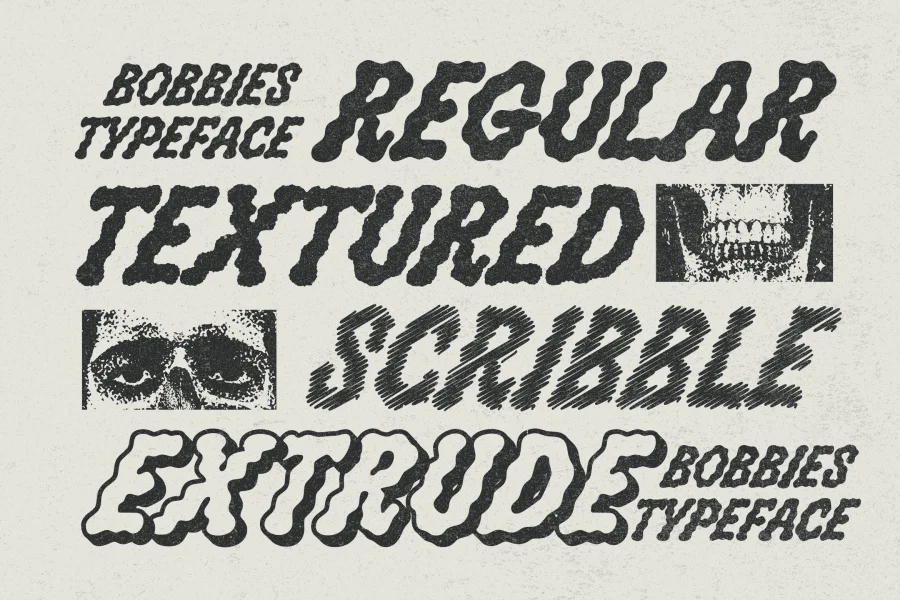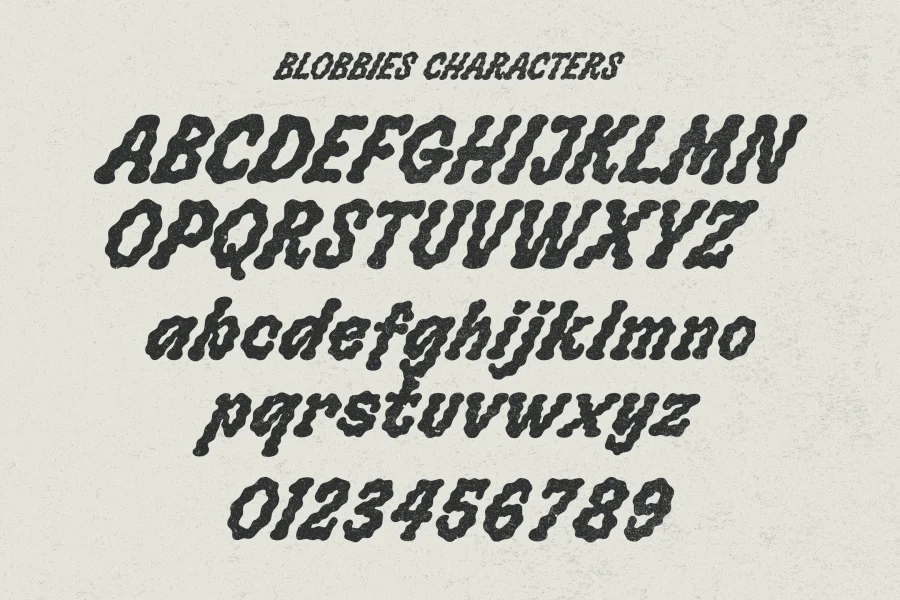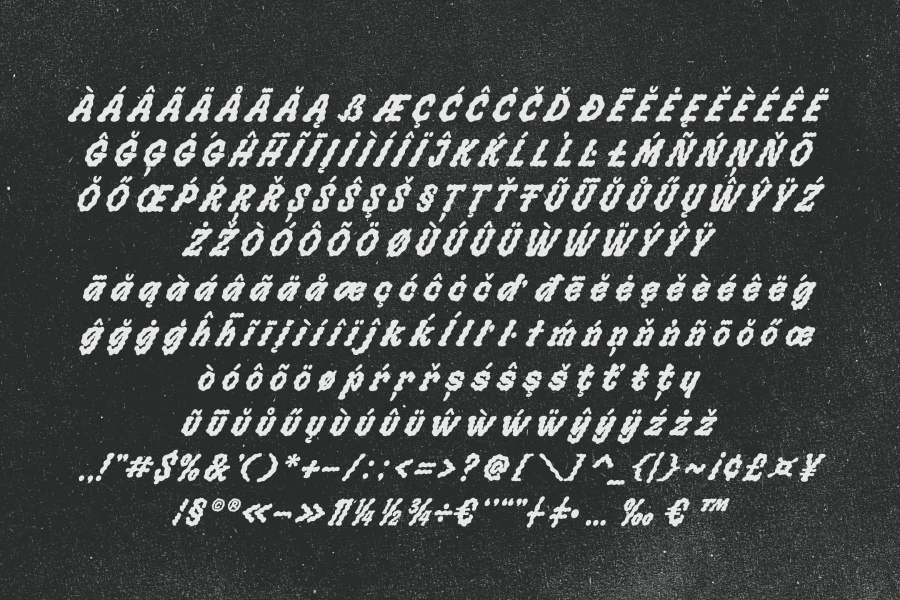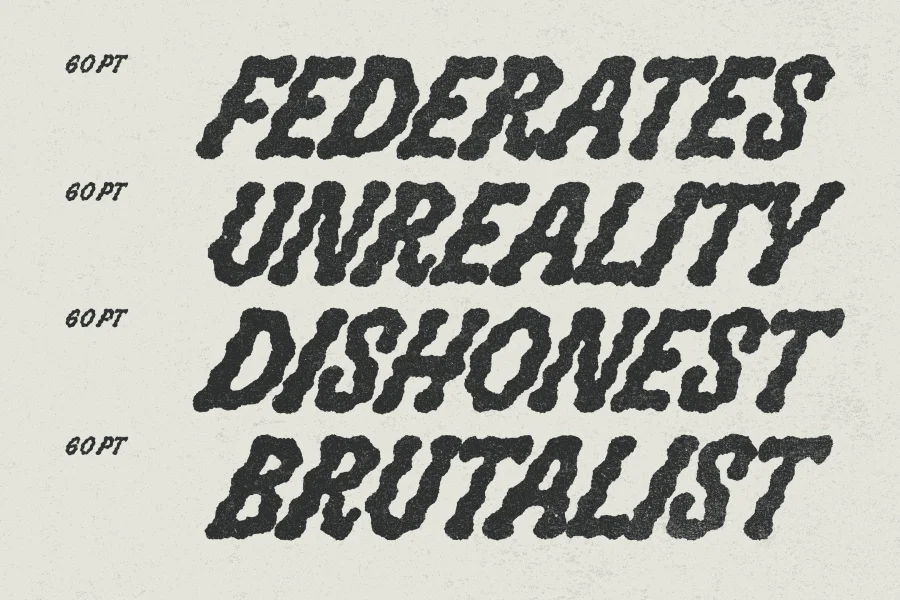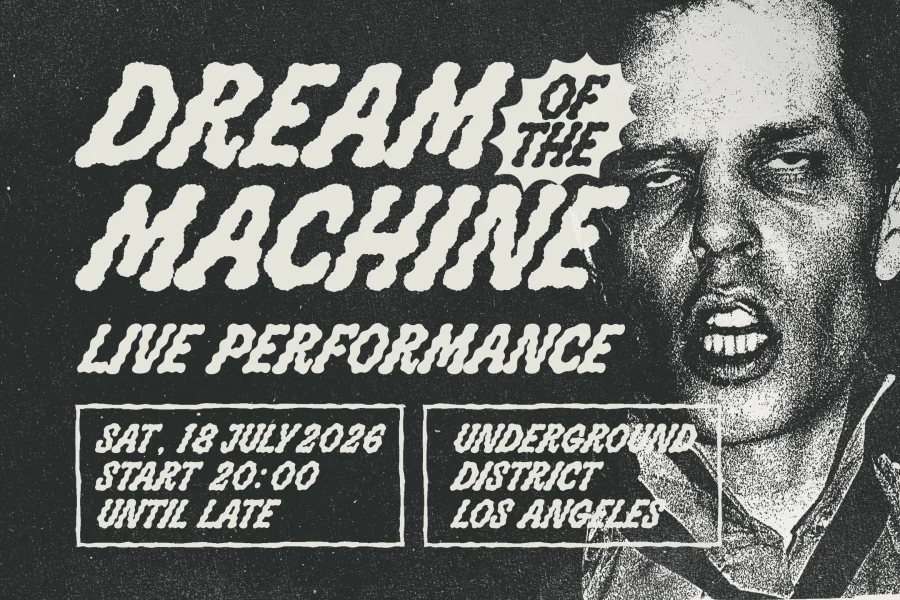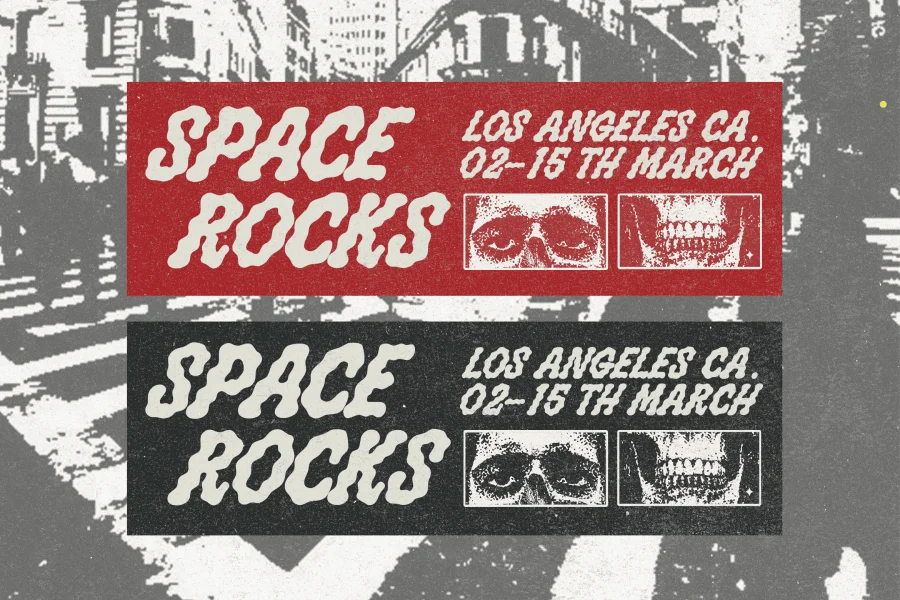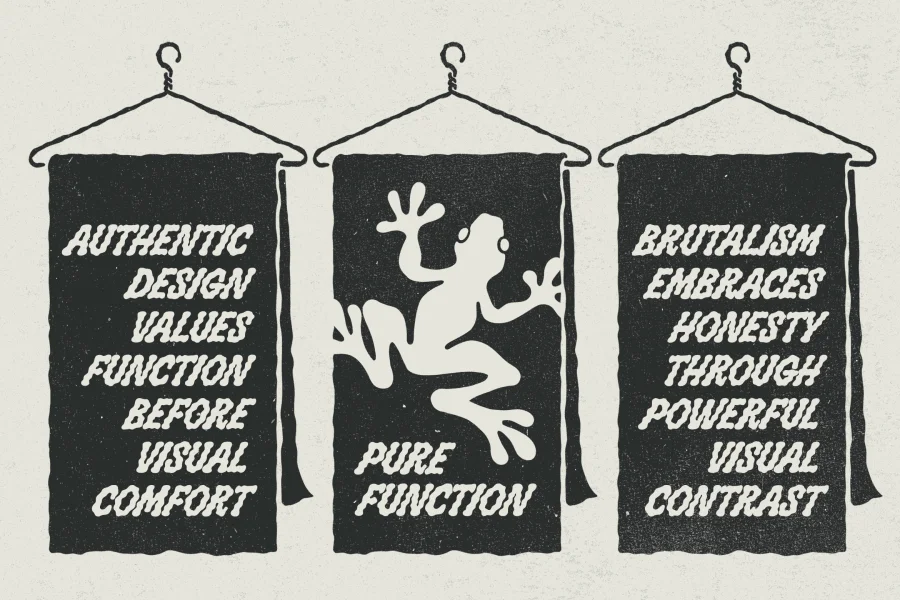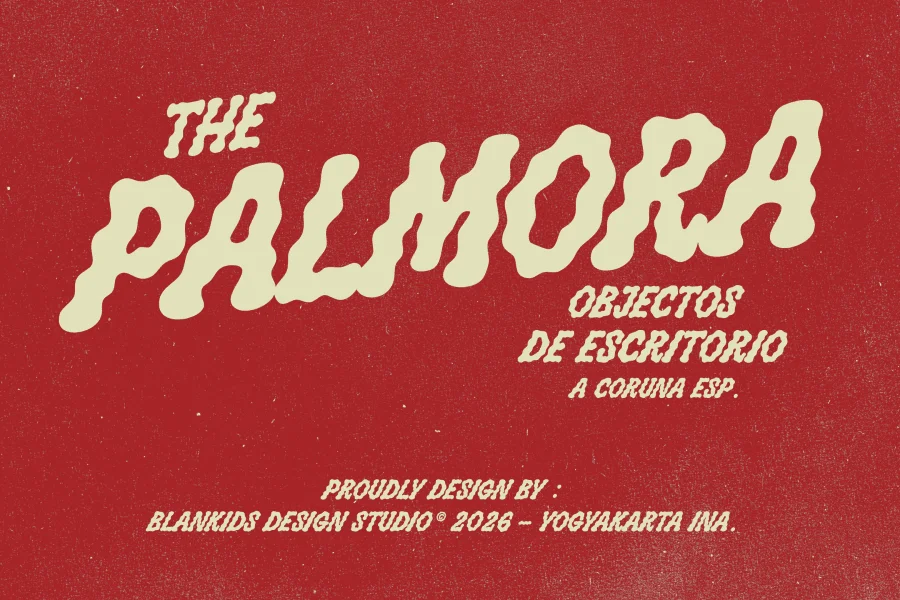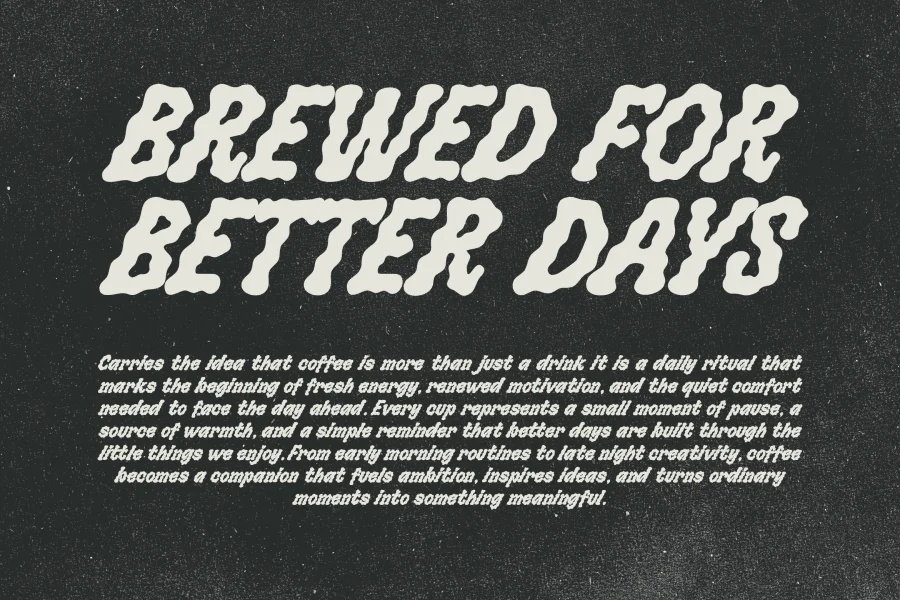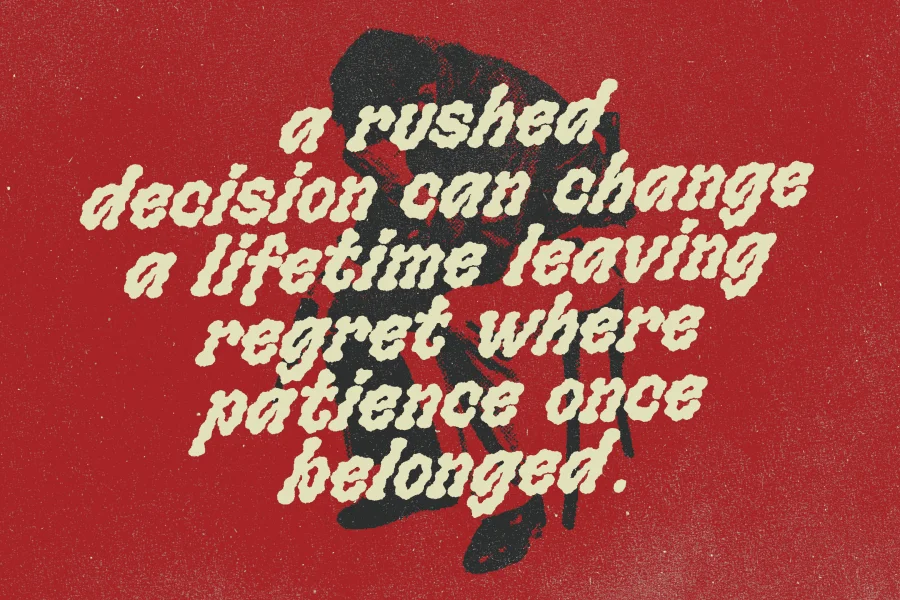
Blobbies is a heavy, liquid-inspired display typeface that subverts traditional structure with its undulating, hand-carved contours. Its letterforms feature a highly tactile, gelatinous silhouette that mimics the natural flow of melting or bubbling matter. The posture is dynamically slanted, injecting a sense of kinetic energy and raw human expression into the bold, tightly packed glyphs. This organic, undulating texture creates a visual rhythm that is both playful and intensely graphic, rejecting sterile geometric precision in favor of a warm, irregular, and hand-drawn personality.
This expressive typeface is tailor-made for high-impact creative briefs that demand a distinct, counter-culture edge. Its heavy weight and liquid rhythm make it exceptionally well-suited for underground music gig posters, retro-inspired streetwear branding, rebellious editorial mastheads, and artisanal product packaging. Whether anchoring a bold headline or lending an tactile, low-fi digital aesthetic to merchandise design, the typeface commands attention with its unapologetic, tactile presence.